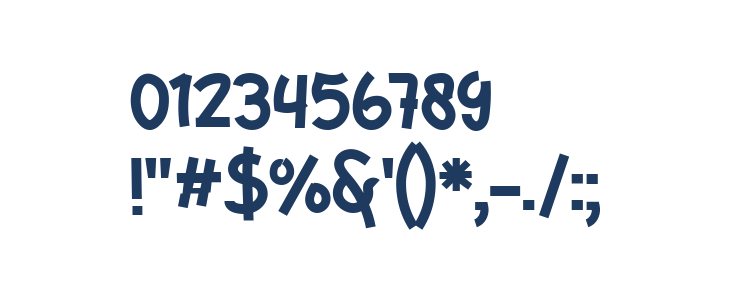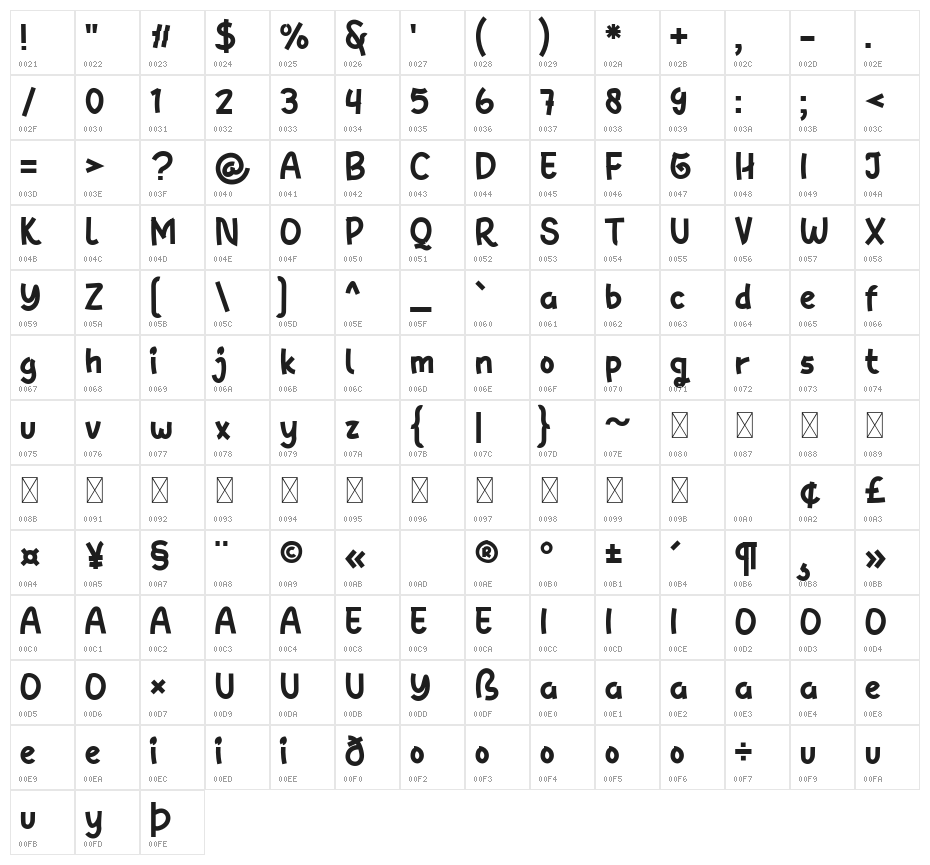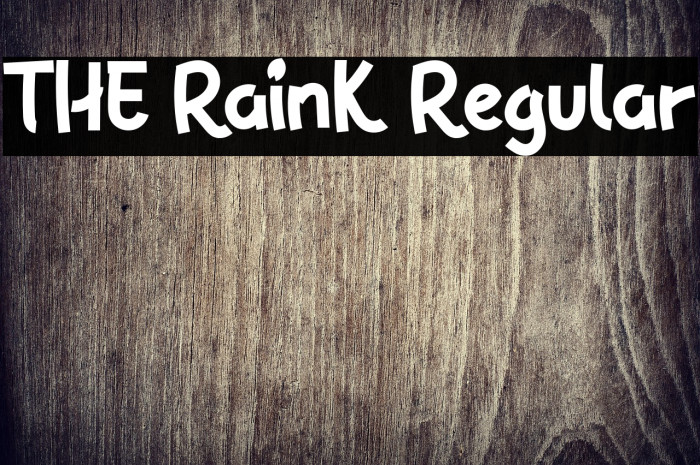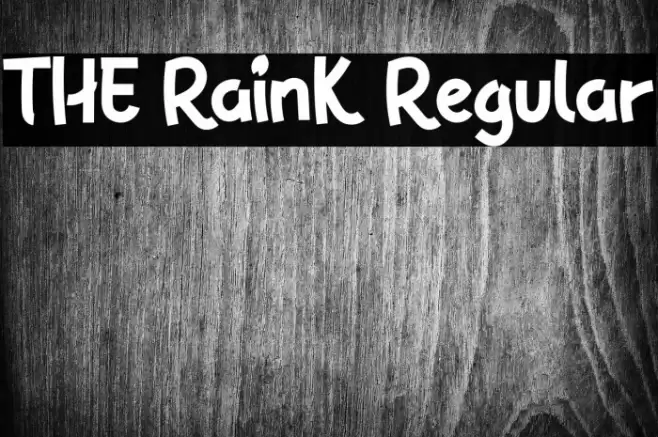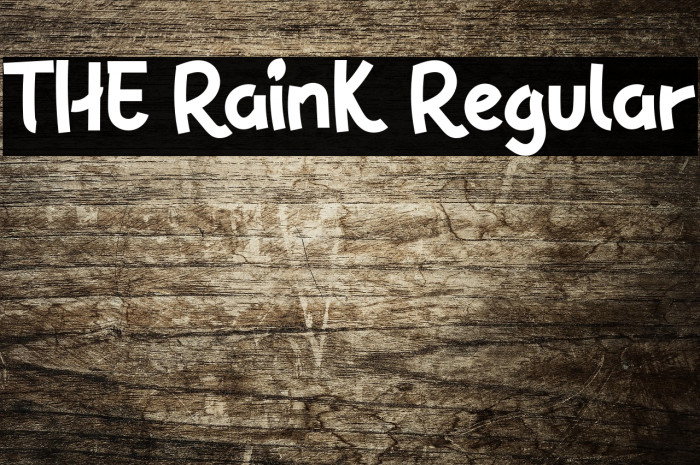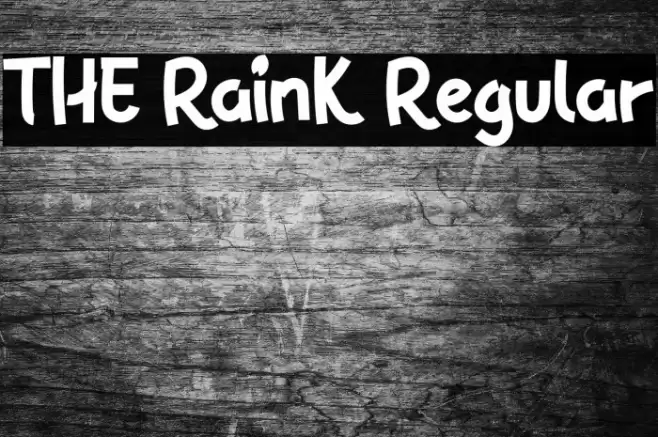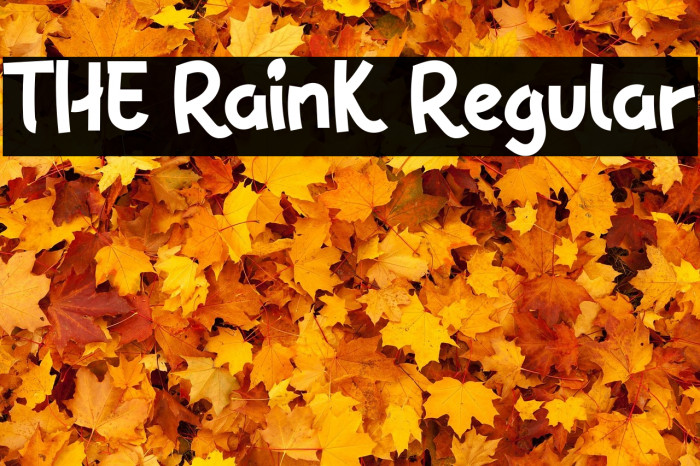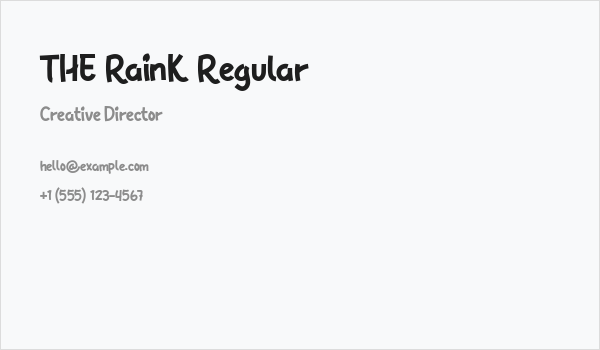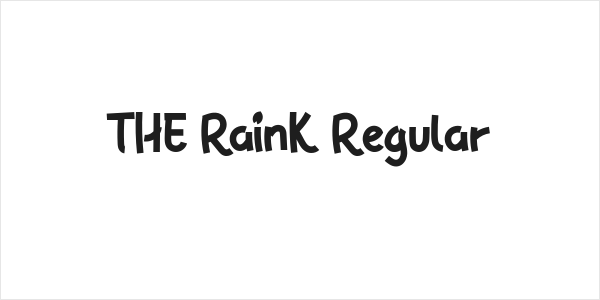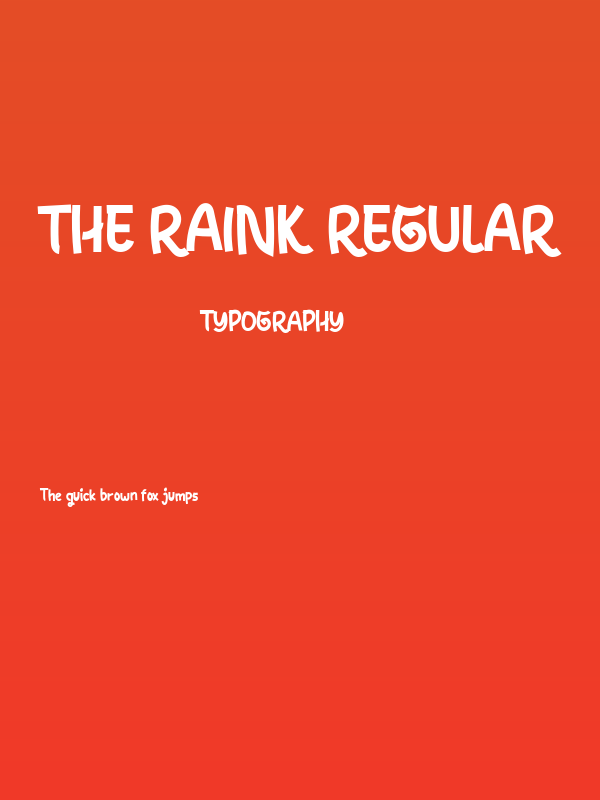
THE RainK Regular Font
THE RainK Regular Description
This playful and whimsical font features a unique and artistic style with a hand-drawn appearance. The characters are bold and have an uneven, organic feel, with some letters incorporating playful swirls and curves. The uppercase and lowercase letters maintain a consistent style, while the numbers and special characters complement the overall design. The font's distinctive personality makes it stand out, offering a creative and informal vibe.
| Overall Style | Whimsical, Playful, Artistic |
| Proposed Projects | Ideal for children's books, creative posters, playful branding, and informal invitations. |